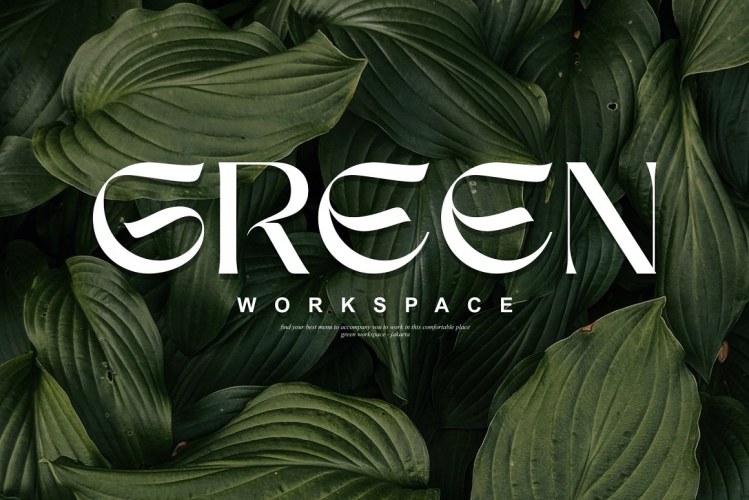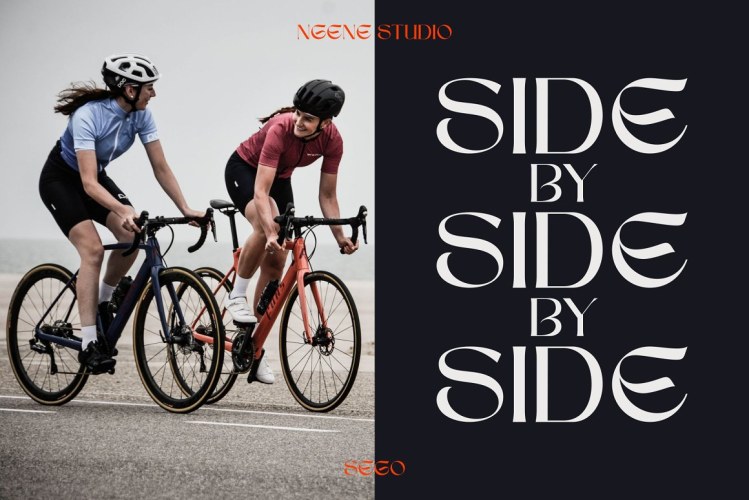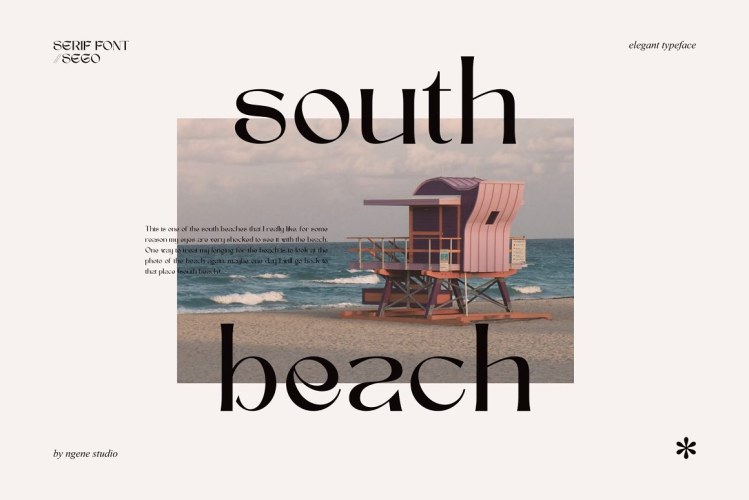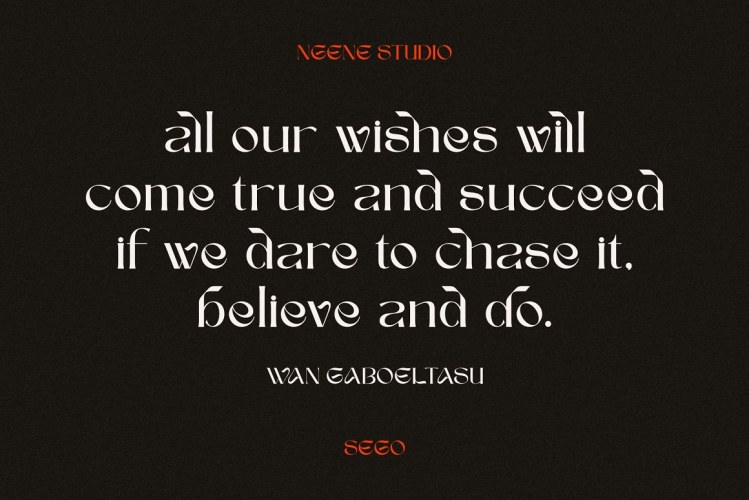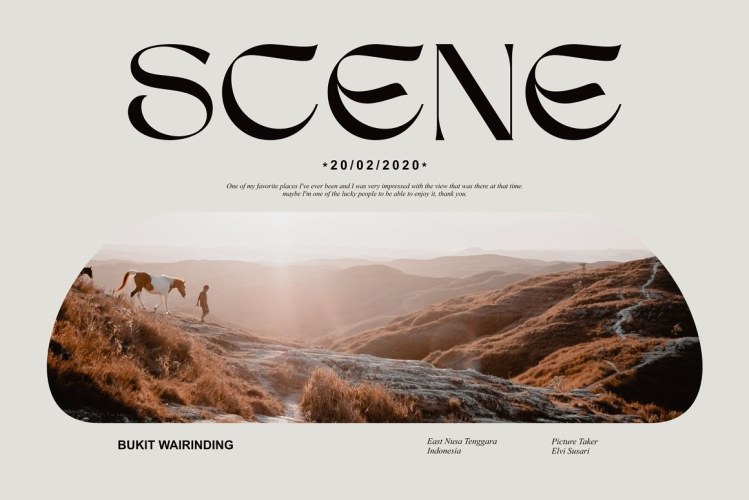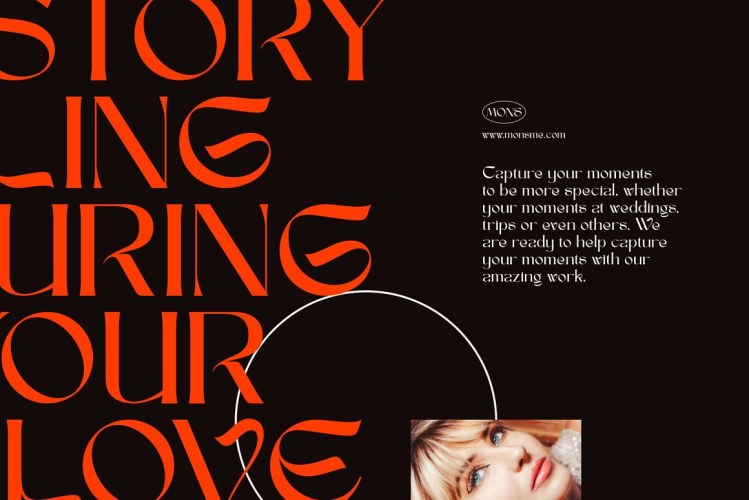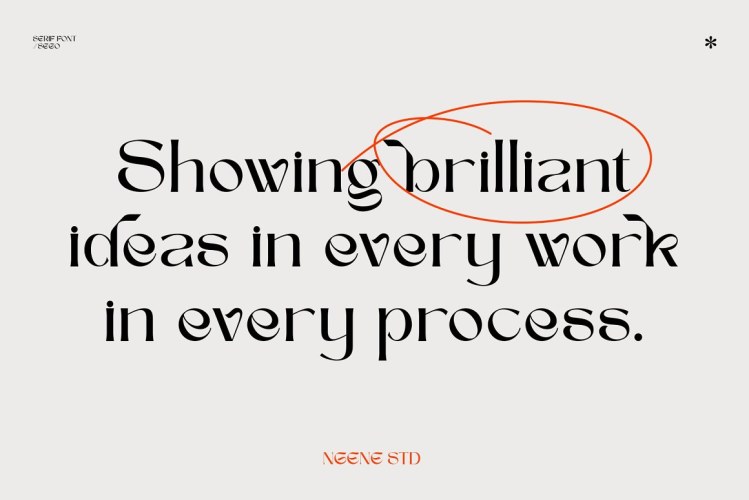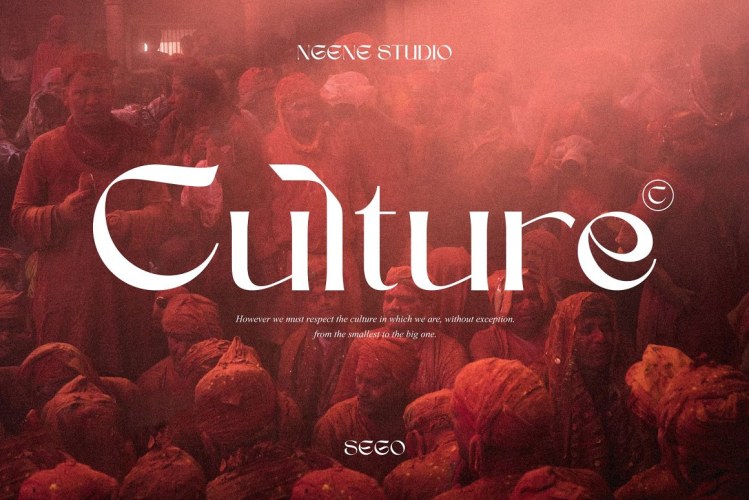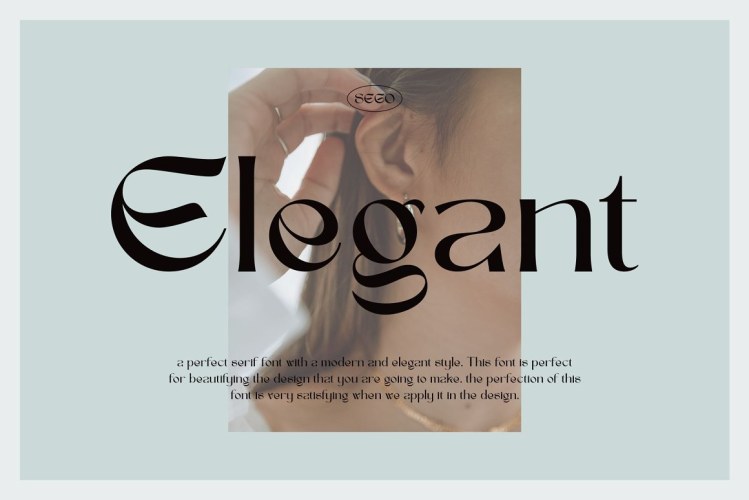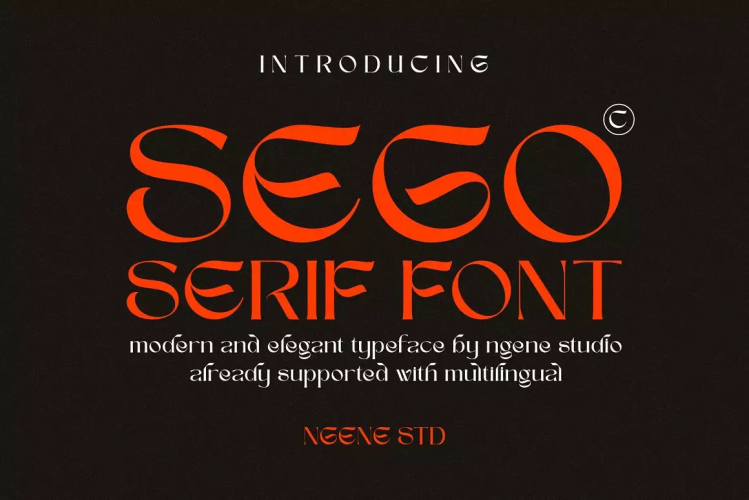
Sego Serif Font
Sego vintage style serif font with an elegant and modern touch, this font is amazing of different character characters. This font has several alternatives available in it, suitable for creating logo designs, badges, web fonts, magazines and others. With a very strong font character, it will make your design different and more attractive.
Sego Serif Font is a Serif Fonts font that brings a professional and versatile look to your projects. Sego vintage style serif font with an elegant and modern touch, this font is amazing of different character characters.